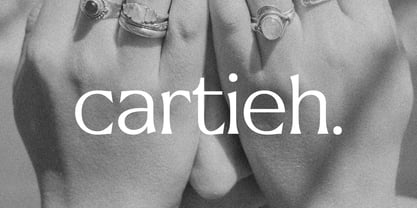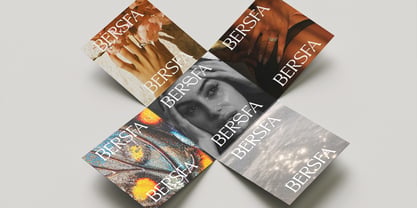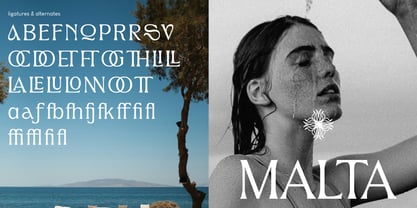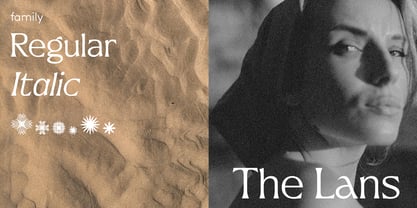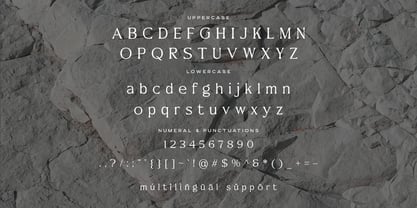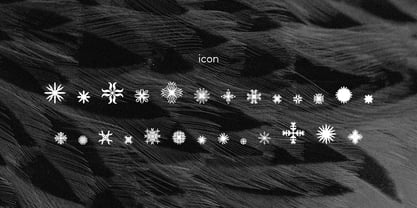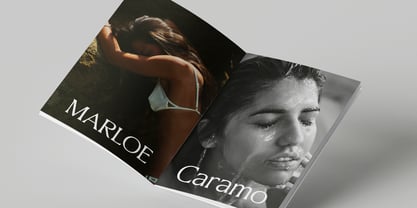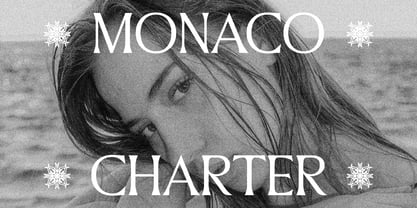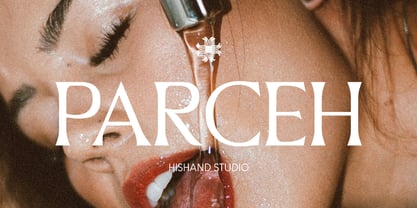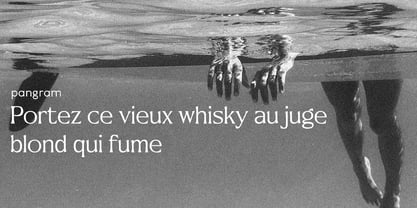
Parceh
The Parceh Font Family was designed by Putu Dody Permana and published by Hishand Studio. Parceh contains 3 styles and family package options. More about this family
Parceh is an elegant serif display font designed to bring a refined yet striking aesthetic to any creative project. With its delicate high-contrast strokes, graceful serifs, and poised proportions, Parceh delivers a luxurious, editorial feel that exudes sophistication and timeless beauty. It is crafted to work beautifully in headlines, fashion branding, posters, and premium packaging where elegance and style matter equally.
What makes Parceh unique is its fine, fashion-forward character. Each letterform is built with a strong thin-to-thick contrast and carefully crafted details that feel both classical and contemporary, giving designers the power to evoke refinement without sacrificing presence. This balance makes it a versatile choice across a wide range of high-end creative applications.
To complete the family, Parceh also includes 26 aesthetic icons. These icons are designed with the same visual language as the typeface, making it effortless to build cohesive and visually compelling compositions that feel polished and intentional from start to finish. Complete with
- ligatures
- alternates
- regular
- Italic
- icon
- kerning
- multilingual support